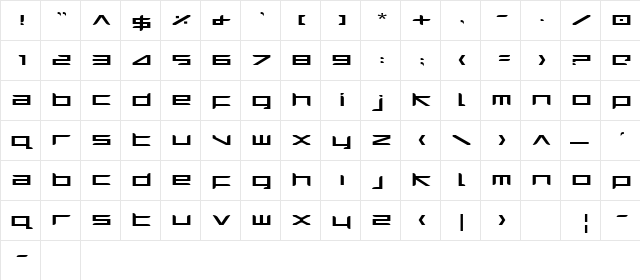
Harrier Expanded Expanded
Design Context for Harrier Expanded Typeface
Harrier Expanded is a composed and adaptable typeface that performs quietly and consistently across a wide range of design contexts.